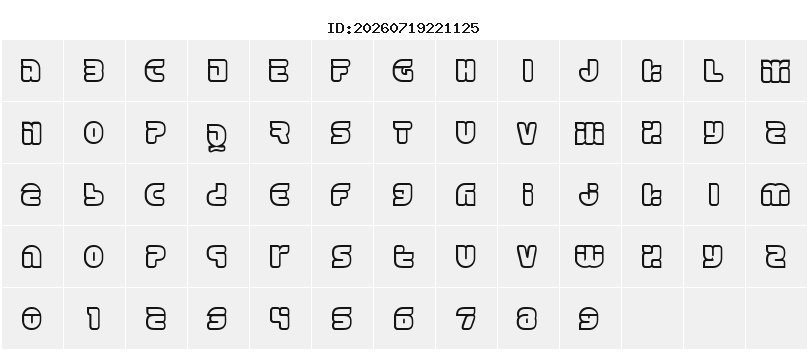
Eraser Preview
• Font Name: Eraser
• Full Font Name: EraserTenGuage
• PostScript Name: EraserTenGuage
About Eraser.ttf
Eraser.ttf is a modern, elegant sans-serif font designed for ultimate readability and visual harmony. Perfect for branding, headlines, web design, and print materials.